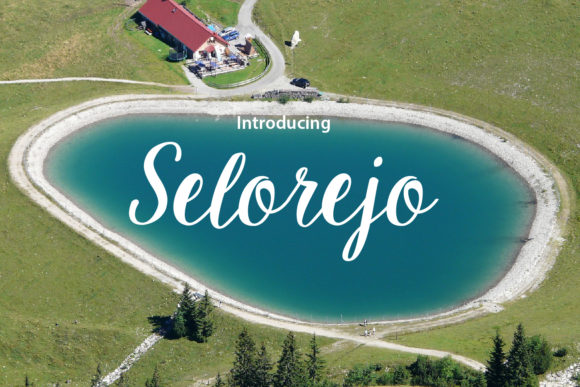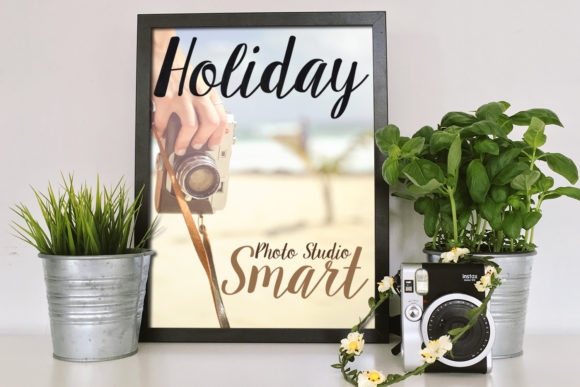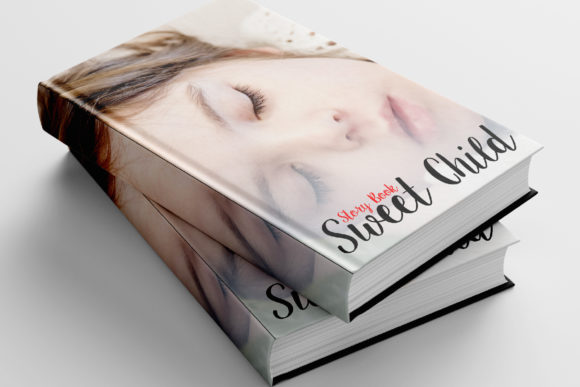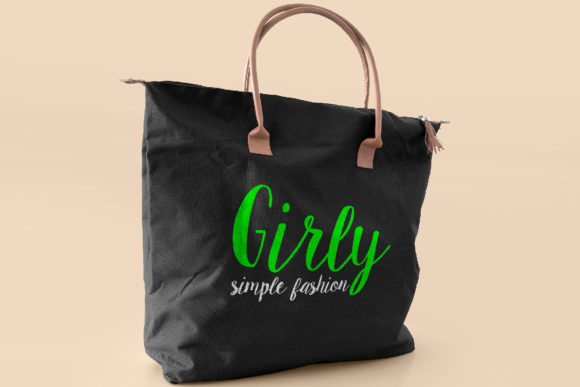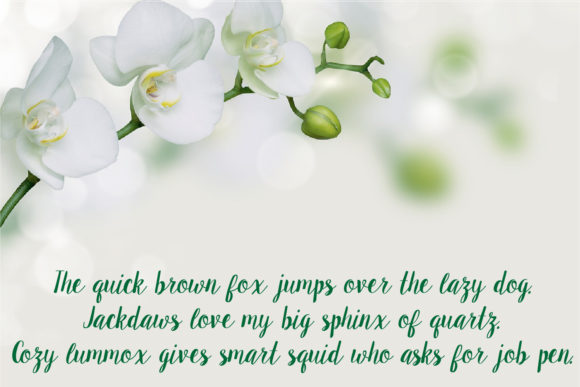
HomeScript FontsSelorejo Font Script Fonts Selorejo Font FacebookXPinterestWhatsApp Selorejo Font Poster 2 Selorejo Font Poster 3 Selorejo Font Poster 4 Selorejo Font Poster 5 About Selorejo Font Selorejo is a fun and cool script with a modern vibe. Get inspired by its casual charm. DOWNLOAD NOW People also explored Sweet Cake Makayla Font Mellow Yellow Font The Carlson Font Marahaban Font Alphii Greisy Font Miguella Font Elementary Elle Font 319 0 TagsSelorejo Font Previous articleHey Fox Rounded Font Trio FontNext articleSoutralia Signature Font LEAVE A REPLY Cancel reply Comment: Please enter your comment! Name:* Please enter your name here Email:* You have entered an incorrect email address! Please enter your email address here Website: Save my name, email, and website in this browser for the next time I comment. Personal Use Free Rionaldo Angelo Personal Use Free Read more about this font Winter Soldier Personal Use Free Read more about this font Rennoya Personal Use Free Read more about this font Short Message Personal Use Free Read more about this font BLOG How to Install and Use Fonts on Windows, macOS, and Web Projects How to Install and Use Fonts on Windows, macOS, and Web Projects Fonts are a crucial part of design and branding. Whether you’re designing a... Where to Buy American Fonts Online in 2024 Free vs Paid Fonts: Why Investing in Premium Fonts Is Worth It Exploring Font Trends